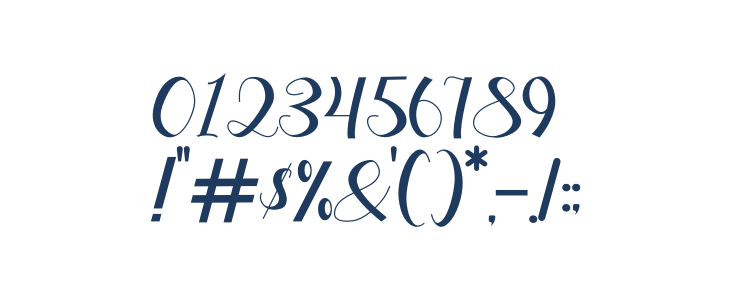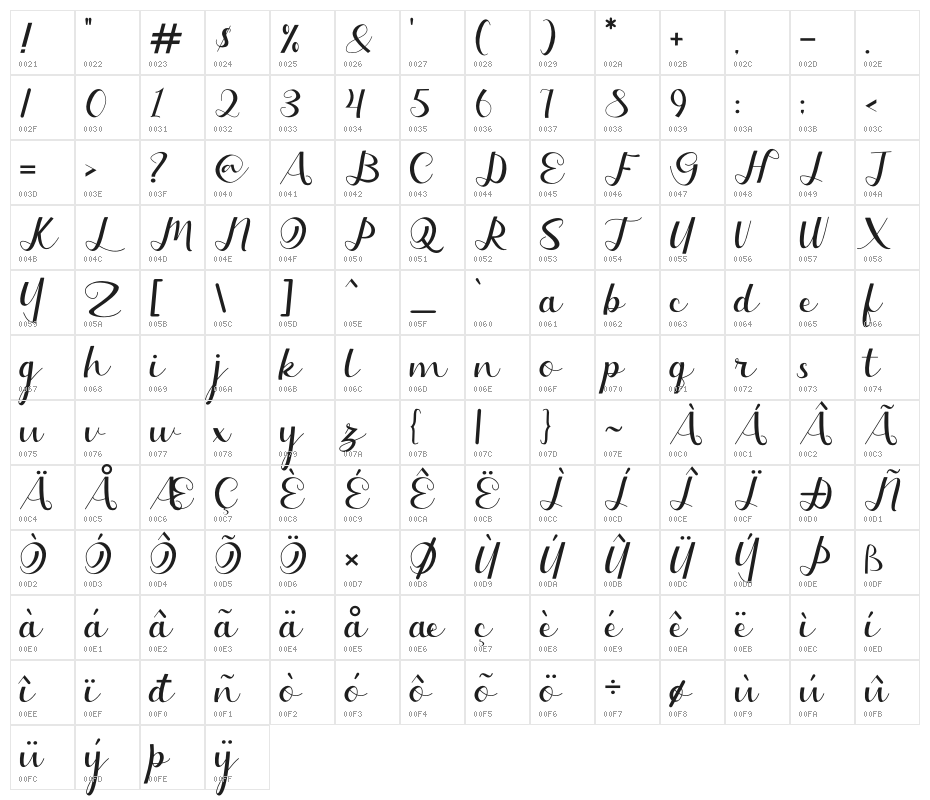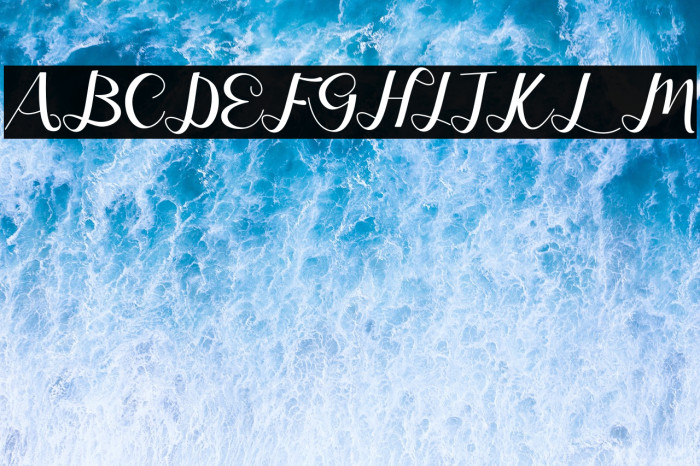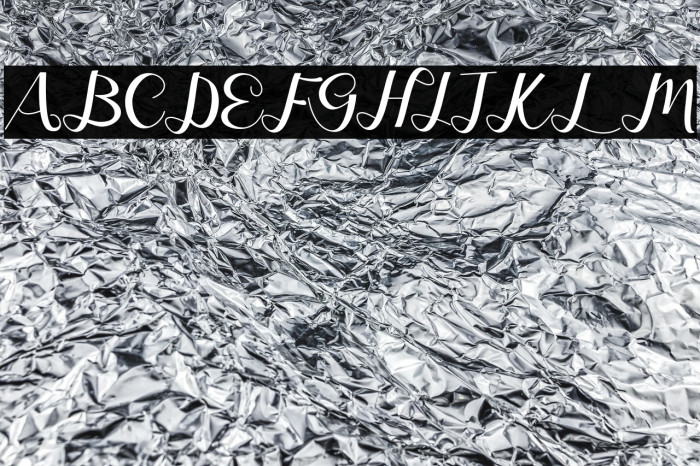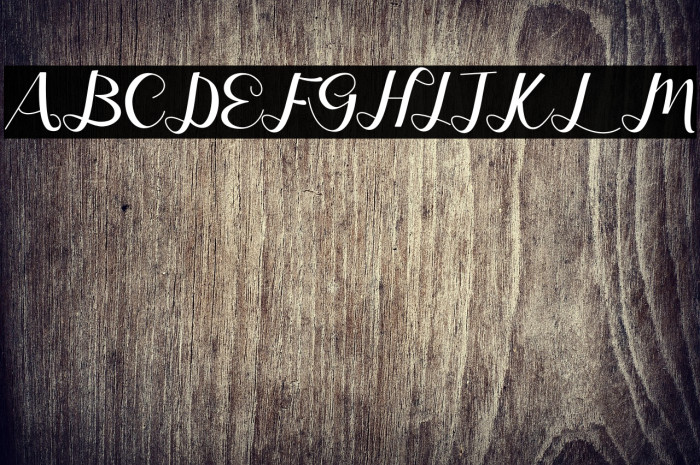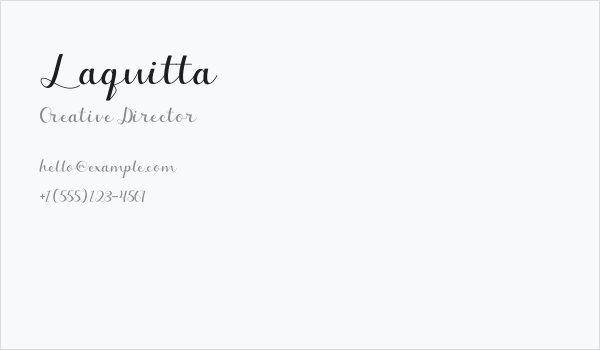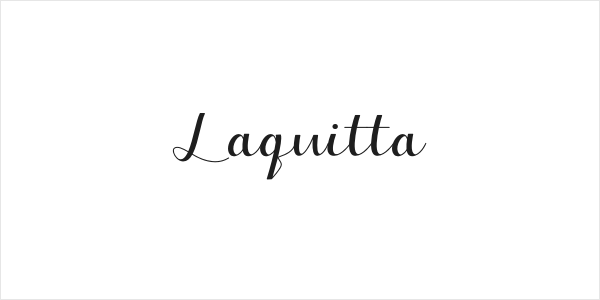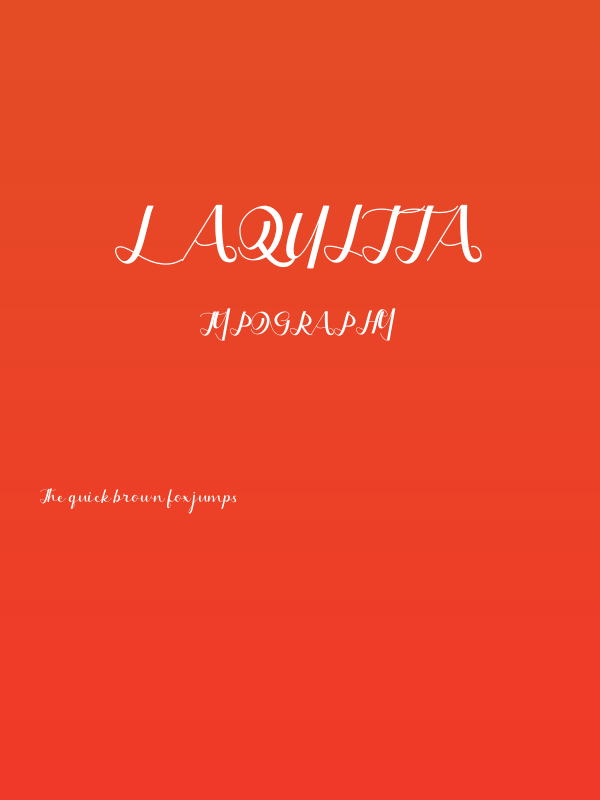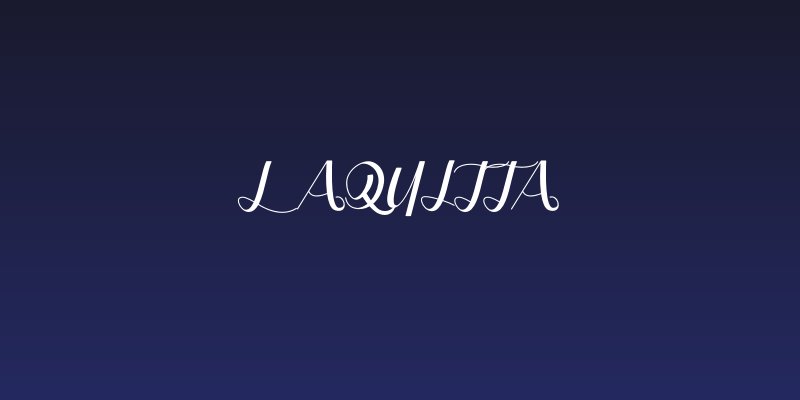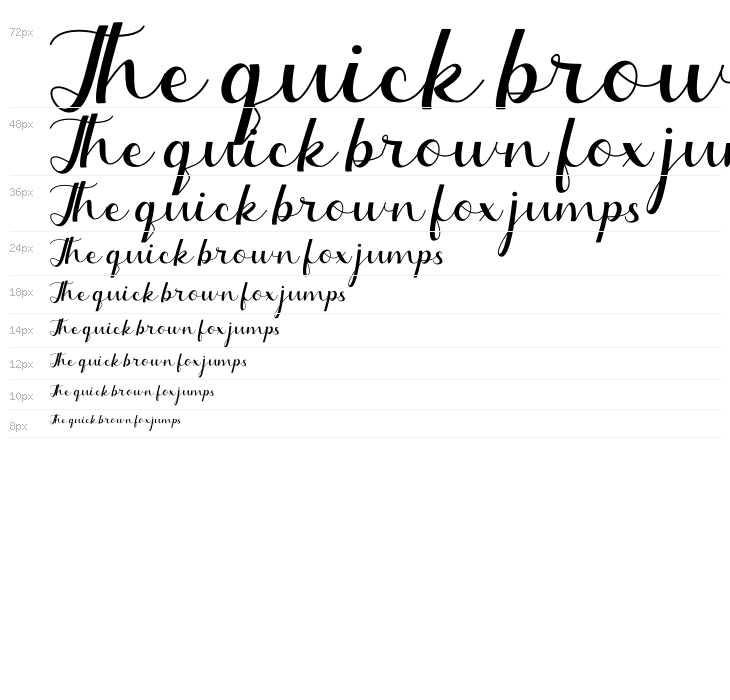
Laquitta Font
Laquitta Description
This elegant script font features flowing, interconnected letters with a graceful and sophisticated appearance. The uppercase letters are adorned with delicate loops and swashes, giving them a decorative flair. The lowercase letters maintain a consistent slant, enhancing the cursive style. The numerals and special characters are designed to complement the overall aesthetic, with similar curves and embellishments. This font exudes a sense of refinement and charm, making it ideal for projects that require a touch of elegance.
| Proposed Projects | Ideal for wedding invitations, elegant branding, greeting cards, and upscale packaging. |